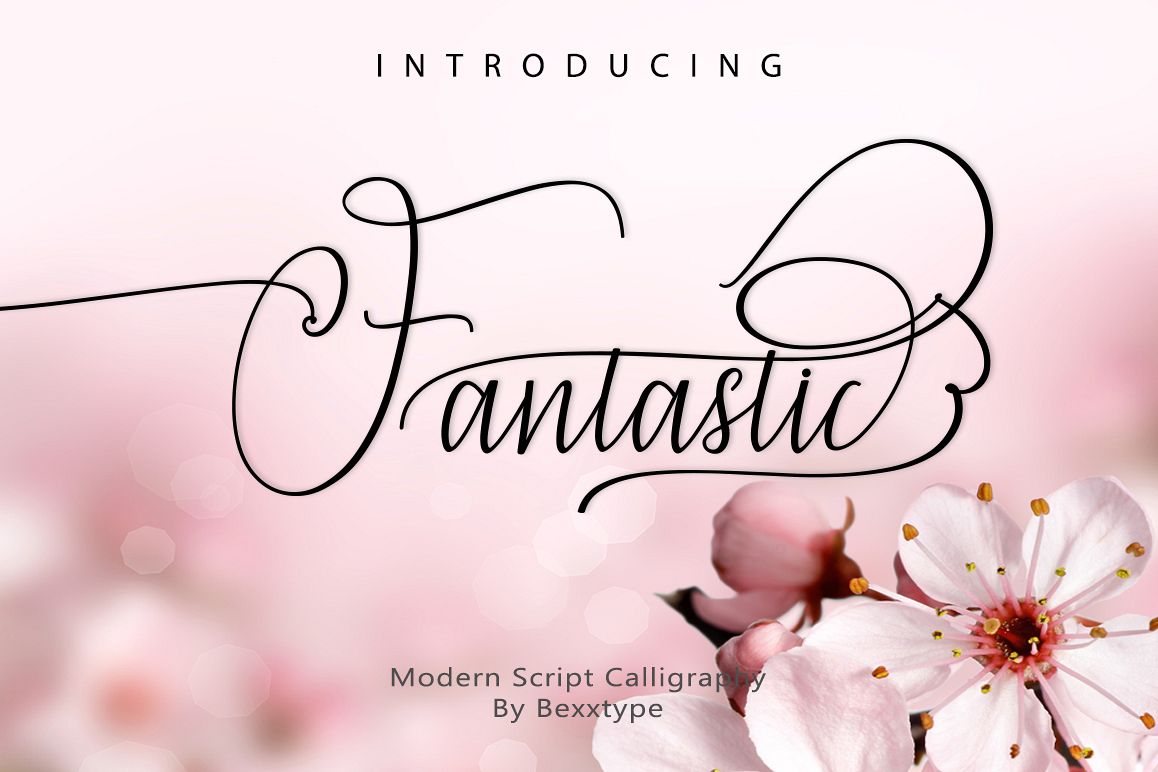
Fantastic Script
The fantastic script is a modern calligraphic manuscript, the bottom line that flows and moves freely. It has a relaxed yet elegant touch. Can be used for various purposes. Like logos, wedding invitations, titles, t-shirts, letterheads, nameplate, labels, news, posters, badges, etc.
The fantastic script has 789+ alternate flying characters. including initial letters and terminals, alternatives, ligatures and multiple language support.